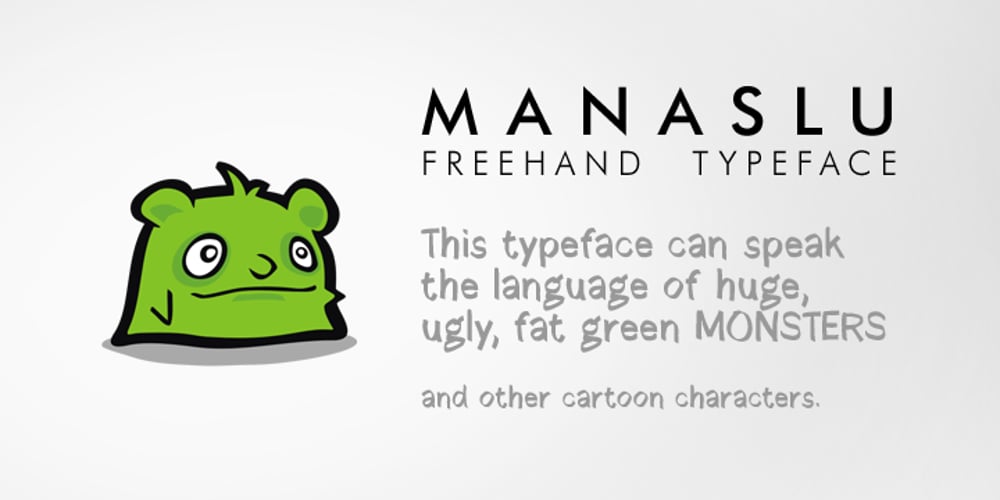
Manaslu
Manaslu font
Manaslu Font Family was designed by Juraj Chrastina and published by Juraj Chrastina. Manaslu contains 1 styles and family package options. Manaslu is based on handwriting with a marker. This font is suitable for cartoons, advertising or anything with need of a personal tone.